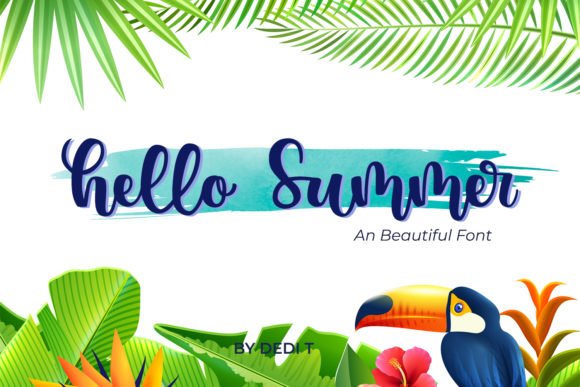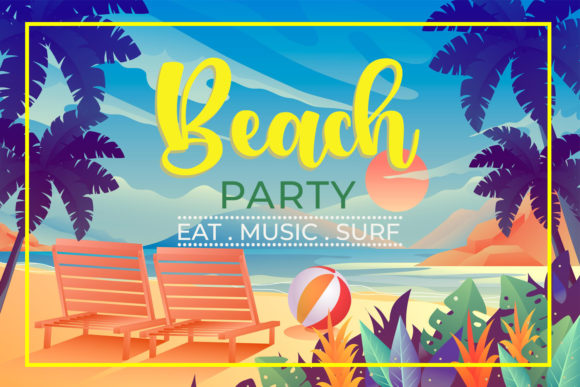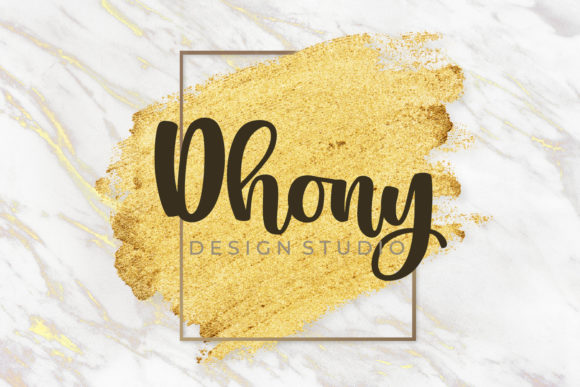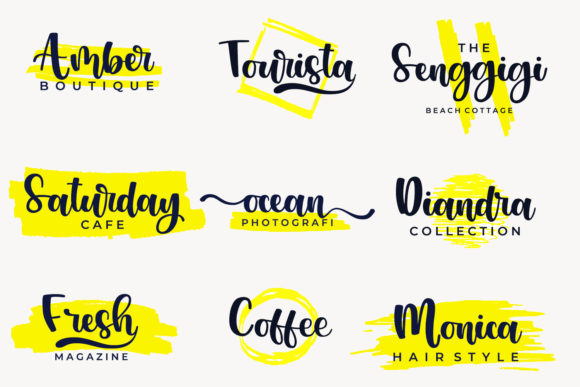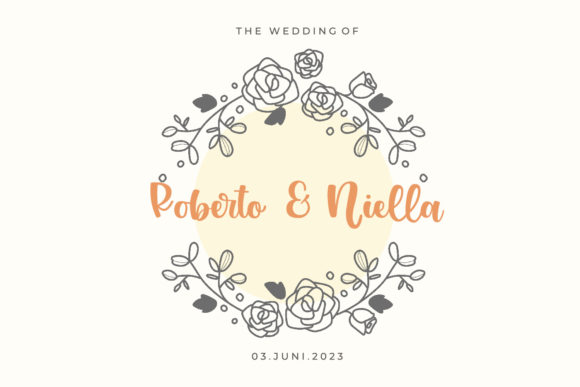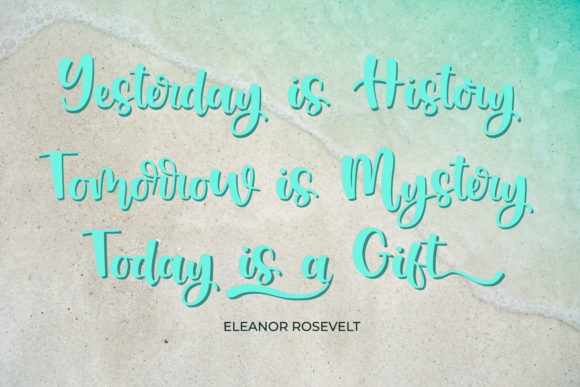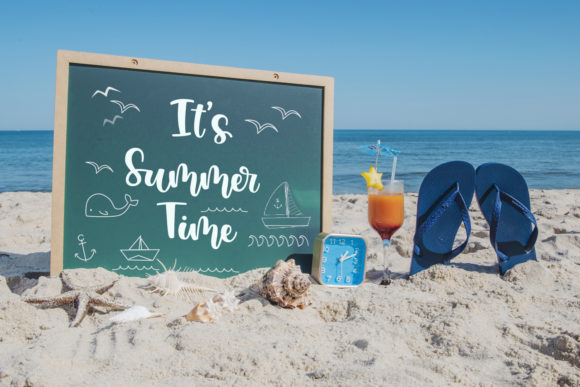
Unlock the Secrets of the Perfect Summer Design
As the sun shines brighter and the days get longer, many creatives find themselves itching to bring their design ideas to life. It’s that time of the year when the air is filled with inspiration and the urge to create something truly special is at its peak. For designers looking to infuse their projects with a touch of warmth and elegance, a new font has emerged that’s sure to become a favorite: Hello Summer Font.
With its masterful blend of classy calligraphic influences and contemporary flair, Hello Summer Font is the perfect addition to any designer’s toolkit. Whether you’re working on a summer-themed campaign, a wedding invitation, or simply want to add a touch of whimsy to your next project, this font is sure to elevate your designs to new heights.
Hello Summer Font Key Features
- Font Family: Hello Summer Font is a unique and playful font designed for various applications, including digital and print media.
- Character Set: The font includes a wide range of characters, including uppercase and lowercase letters, numbers, and special symbols.
- Unique Characteristics: Features a distinctive, hand-drawn style with bold lines and playful flourishes, adding a touch of whimsy to any design.
Hello Summer Font Review
Hello Summer Font is a beautiful, playful font perfect for capturing the carefree spirit of summer. ✨ The font’s unique character set, complete with swashes and flourishes, adds a touch of whimsy to any design project. It’s ideal for branding, social media graphics, and even wedding invitations.
Here are some of the font’s key strengths:
- ✨ Unique character set with swashes and flourishes
- ✨ Perfect for capturing a carefree, summer vibe
- ✨ Suitable for a wide range of design projects, from branding to social media graphics
- ✨ Available in a variety of weights and styles
- ⚠️ Limited legibility in smaller font sizes
- ⚠️ May not be suitable for formal or professional designs
- ⚠️ Some users may find the font’s playful nature to be distracting or unprofessional
Overall, I think Hello Summer Font is a great choice for designers looking to add some personality and whimsy to their projects. With its unique character set and playful vibe, it’s sure to be a hit with clients and customers alike.
For best results, use “Hello Summer Font” in projects that require a playful, casual feel, such as social media posts, greeting cards, or summer-themed designs. Experiment with different font sizes, colors, and combinations to create a unique look.
Alternatives to “Hello Summer Font” for Designers
Ostrich Sans is a modern sans-serif font that works well for digital and print designs. It has a clean and friendly feel, making it suitable for various projects, including branding, advertising, and editorial content. In comparison to Hello Summer Font, Ostrich Sans is more versatile and can be used in a wider range of applications.
Playfair Display is an elegant and luxurious serif font that is perfect for creating a high-end look and feel. It’s ideal for use in invitations, luxury branding, and other projects where sophistication and refinement are key. While Hello Summer Font has a playful and casual vibe, Playfair Display is more formal and sophisticated.
Montserrat is a geometric sans-serif font that is highly legible and versatile. It’s a great choice for use in urban and modern designs, such as city guides, travel websites, and fashion brands. Compared to Hello Summer Font, Montserrat is more modern and urban, with a focus on clean lines and geometric shapes.
Lato is a modern sans-serif font that is highly customizable and versatile. It’s suitable for use in various projects, including branding, advertising, and editorial content. In comparison to Hello Summer Font, Lato is more minimalist and clean, with a focus on simplicity and readability.